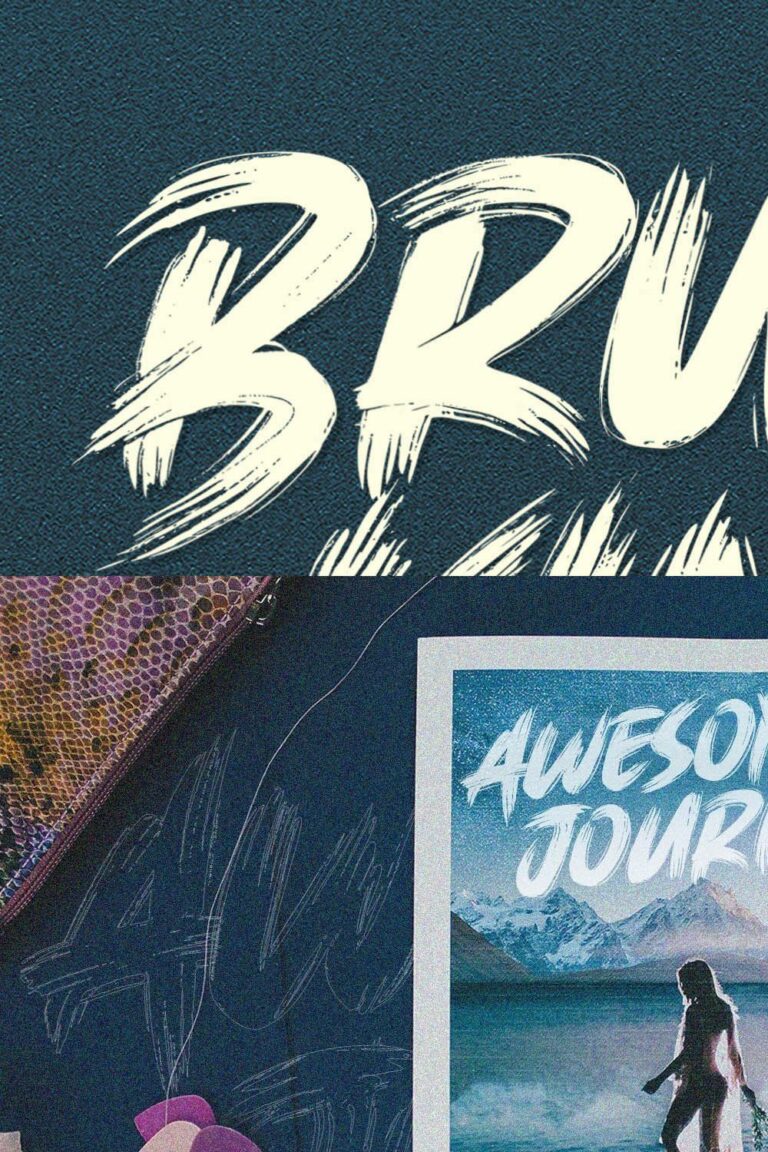
Brush King Font Ttf . 438,395 downloads (138 yesterday) 1 comment free for personal use. Brush king is a cool, brushed and natural display font. Font brush king, license and terms of use, symbols, categories, supported languages, download link. Click here to create a custom image with your own text. Brush king à € by subectype & orenari. This font is perfect for challenging jobs,. Looking for brush king font designed by subectype & orenari? Brush king is licensed under the following terms: Download font free at fontriver. A script font in a dry marker with speed and intimate touch.
Brush king is licensed under the following terms: 438,395 downloads (138 yesterday) 1 comment free for personal use. Download font free at fontriver. Click here to create a custom image with your own text. A script font in a dry marker with speed and intimate touch. Brush king is a cool, brushed and natural display font. Font brush king, license and terms of use, symbols, categories, supported languages, download link. Looking for brush king font designed by subectype & orenari? This font is perfect for challenging jobs,. Brush king à € by subectype & orenari.
Brush King font by Subectype & Orenari FontRiver
Brush King Font Ttf Looking for brush king font designed by subectype & orenari? Brush king is licensed under the following terms: 438,395 downloads (138 yesterday) 1 comment free for personal use. Download font free at fontriver. Click here to create a custom image with your own text. Brush king à € by subectype & orenari. Looking for brush king font designed by subectype & orenari? Font brush king, license and terms of use, symbols, categories, supported languages, download link. A script font in a dry marker with speed and intimate touch. Brush king is a cool, brushed and natural display font. This font is perfect for challenging jobs,.
Brush King Font · 1001 Fonts Brush King Font Ttf Brush king is a cool, brushed and natural display font. Download font free at fontriver. A script font in a dry marker with speed and intimate touch. Brush king à € by subectype & orenari. This font is perfect for challenging jobs,. Click here to create a custom image with your own text. Font brush king, license and terms of. Brush King Font Ttf.
Brush King Font · 1001 Fonts Brush King Font Ttf Font brush king, license and terms of use, symbols, categories, supported languages, download link. This font is perfect for challenging jobs,. Brush king is a cool, brushed and natural display font. A script font in a dry marker with speed and intimate touch. Looking for brush king font designed by subectype & orenari? Brush king à € by subectype &. Brush King Font Ttf.
Brush King Font Download Free Free Fonts Vault Brush King Font Ttf A script font in a dry marker with speed and intimate touch. Looking for brush king font designed by subectype & orenari? Click here to create a custom image with your own text. Font brush king, license and terms of use, symbols, categories, supported languages, download link. Brush king is licensed under the following terms: Brush king is a cool,. Brush King Font Ttf.
Brush King Font by Roni Studio · Creative Fabrica Brush King Font Ttf Looking for brush king font designed by subectype & orenari? 438,395 downloads (138 yesterday) 1 comment free for personal use. Click here to create a custom image with your own text. Brush king is a cool, brushed and natural display font. Download font free at fontriver. A script font in a dry marker with speed and intimate touch. Brush king. Brush King Font Ttf.
Brush King 1.00;December 12, 2019;FontCreator 12.0.0.2547 64bit Fonts Free Download Brush King Font Ttf Brush king is licensed under the following terms: Brush king à € by subectype & orenari. Brush king is a cool, brushed and natural display font. Font brush king, license and terms of use, symbols, categories, supported languages, download link. Click here to create a custom image with your own text. A script font in a dry marker with speed. Brush King Font Ttf.
Brush Fonts SVG PNG TTF Letters and Numbers Alphabet Svg Etsy Brush King Font Ttf Download font free at fontriver. Brush king is a cool, brushed and natural display font. Click here to create a custom image with your own text. A script font in a dry marker with speed and intimate touch. This font is perfect for challenging jobs,. Font brush king, license and terms of use, symbols, categories, supported languages, download link. Brush. Brush King Font Ttf.
Brush King free font Brush King Font Ttf Brush king is a cool, brushed and natural display font. 438,395 downloads (138 yesterday) 1 comment free for personal use. Click here to create a custom image with your own text. Looking for brush king font designed by subectype & orenari? Brush king is licensed under the following terms: Download font free at fontriver. Font brush king, license and terms. Brush King Font Ttf.
Brush King Font Download Free Free Fonts Vault Brush King Font Ttf Brush king is a cool, brushed and natural display font. 438,395 downloads (138 yesterday) 1 comment free for personal use. A script font in a dry marker with speed and intimate touch. This font is perfect for challenging jobs,. Looking for brush king font designed by subectype & orenari? Click here to create a custom image with your own text.. Brush King Font Ttf.
Brush King Windows font free for Personal Brush King Font Ttf Looking for brush king font designed by subectype & orenari? A script font in a dry marker with speed and intimate touch. Click here to create a custom image with your own text. Brush king is a cool, brushed and natural display font. Brush king à € by subectype & orenari. 438,395 downloads (138 yesterday) 1 comment free for personal. Brush King Font Ttf.